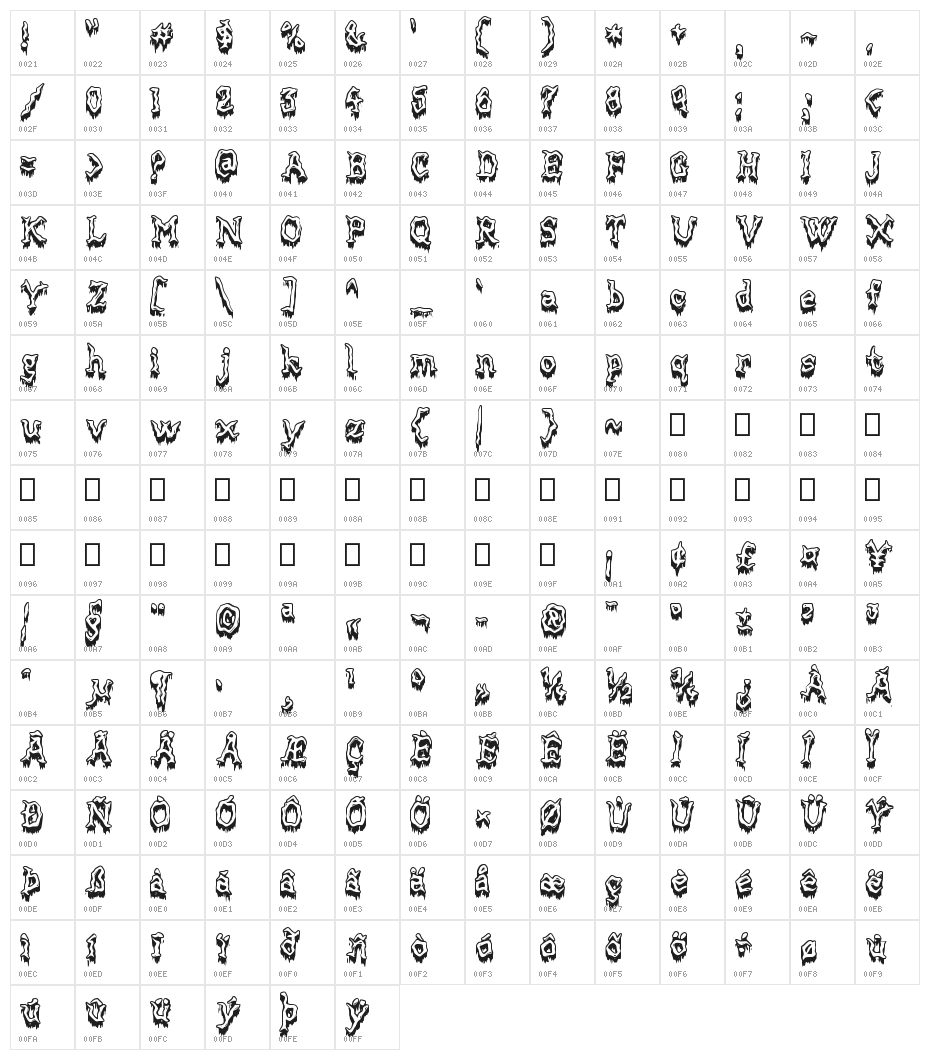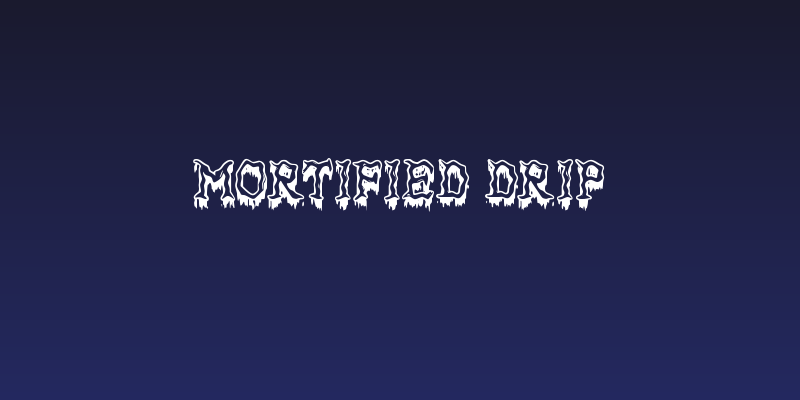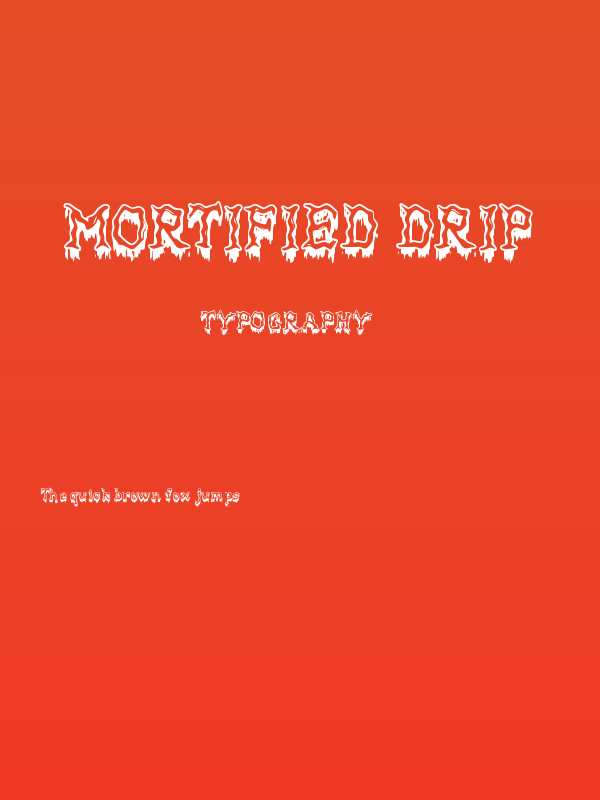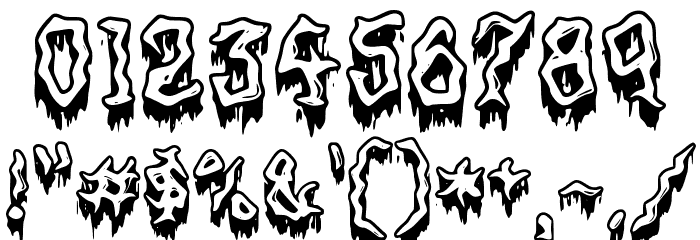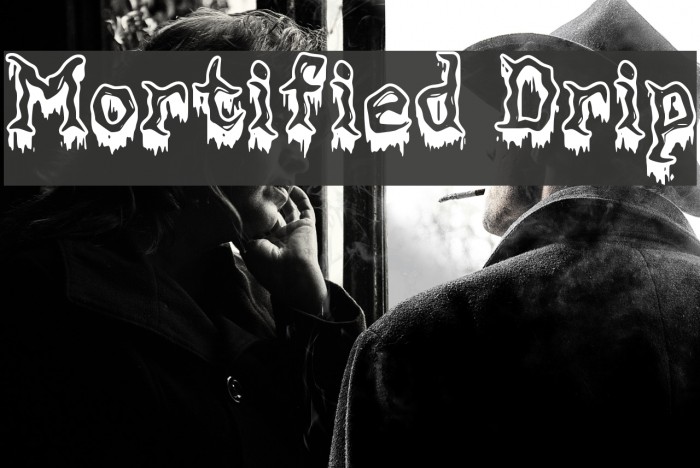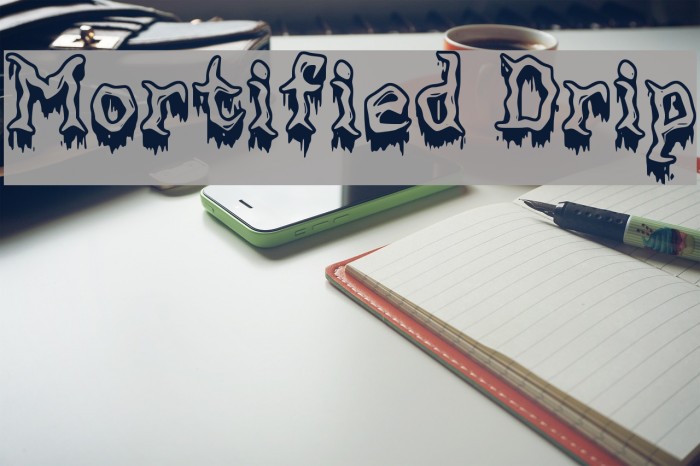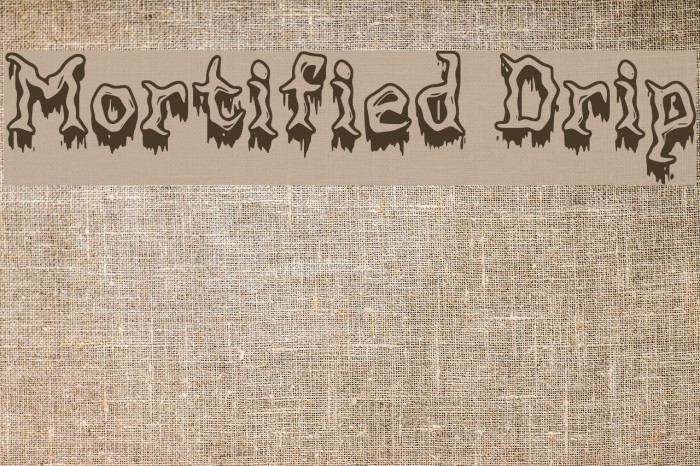
Mortified Drip Font
Mortified Drip Description
This font features a unique, dripping effect that gives the appearance of melting or oozing letters. The characters are bold and have a playful, yet slightly eerie aesthetic, making them ideal for themes related to horror or Halloween. The uppercase and lowercase letters maintain a consistent style, with each character appearing as if it is dripping with liquid. The numbers and special characters follow the same design, ensuring a cohesive look across all elements. The font's distinct style makes it stand out, perfect for creating eye-catching designs.
| Proposed Projects | Ideal for Halloween-themed designs, horror movie posters, spooky invitations, or any project requiring a dramatic and eye-catching font. |